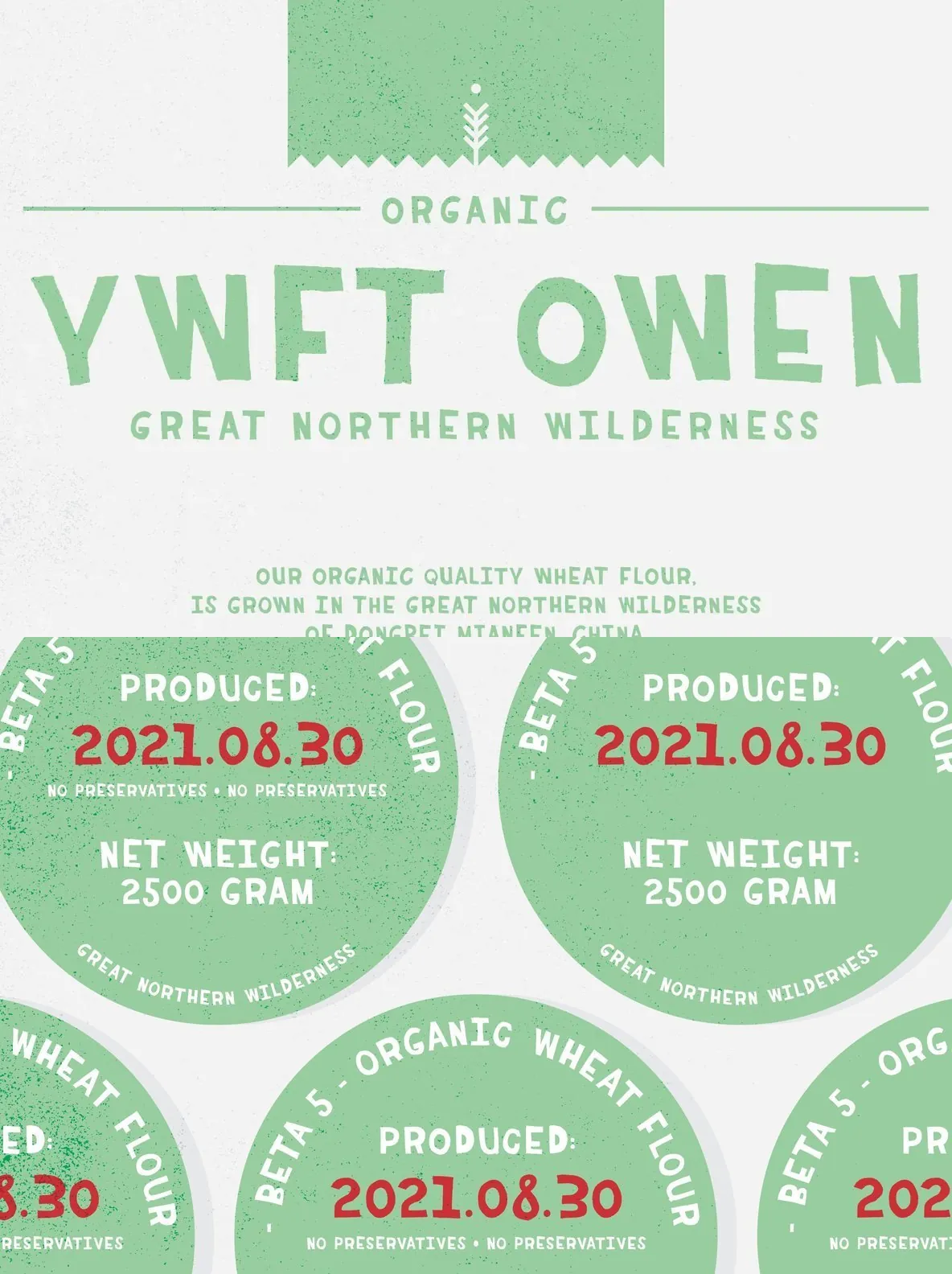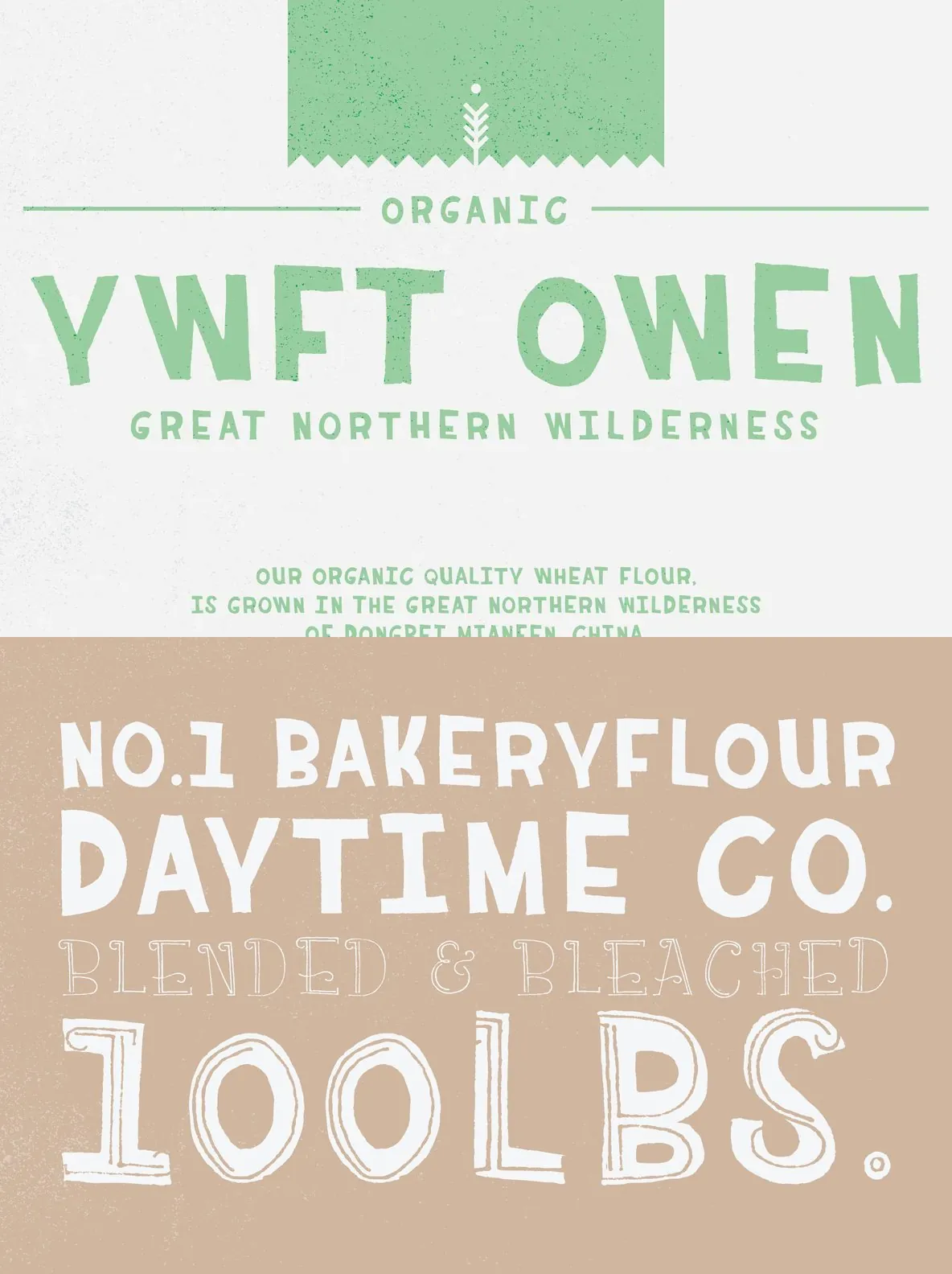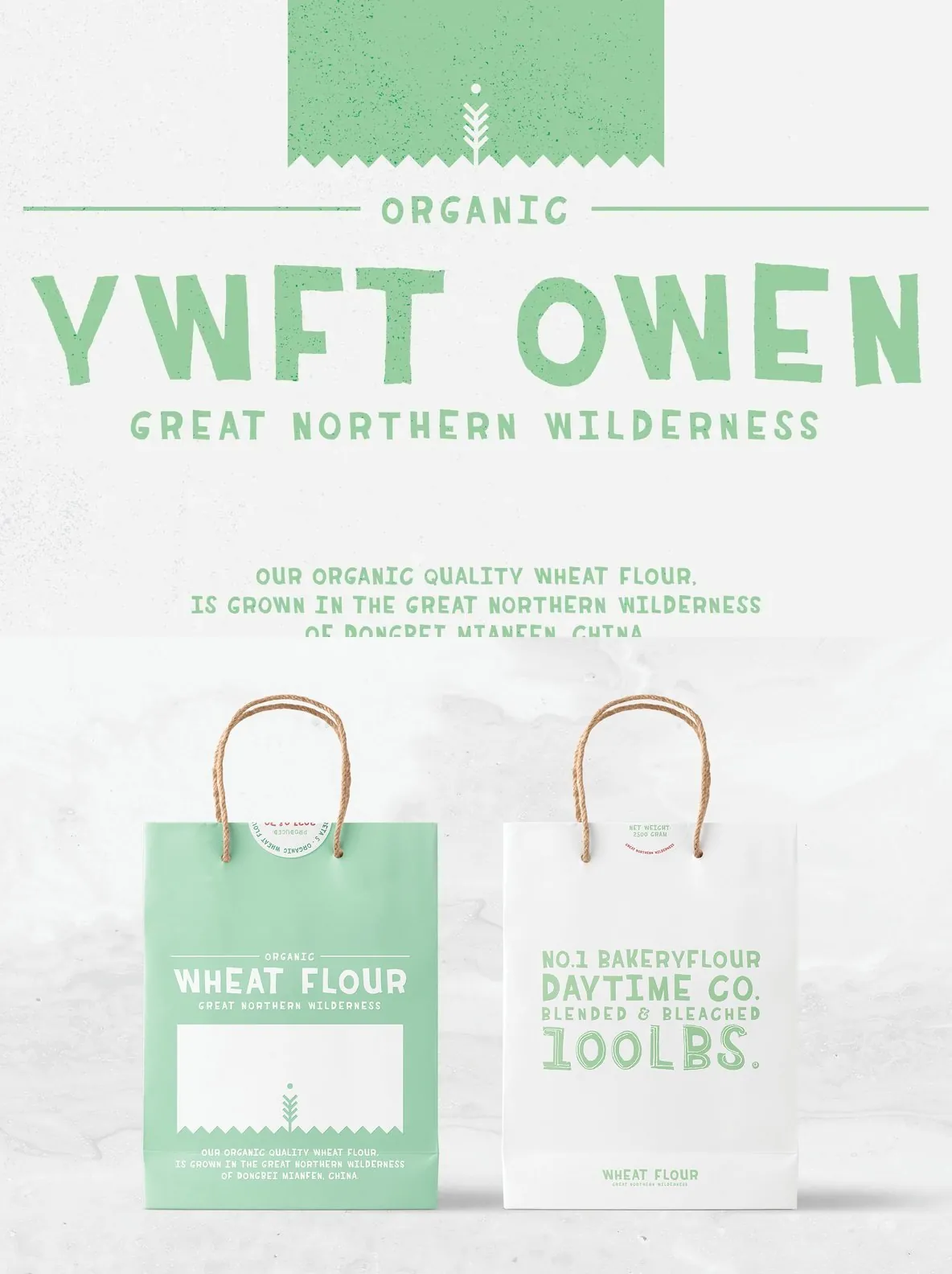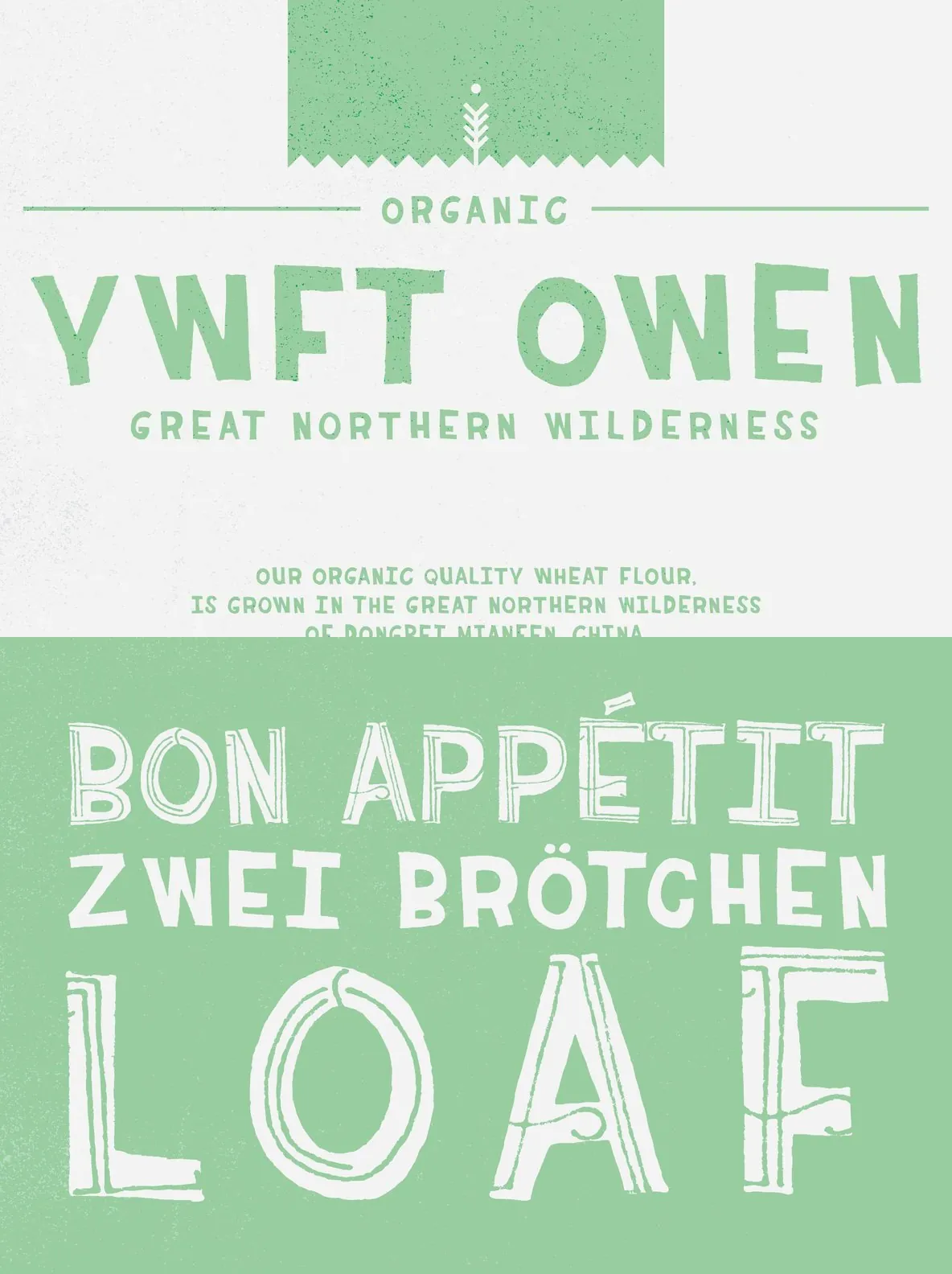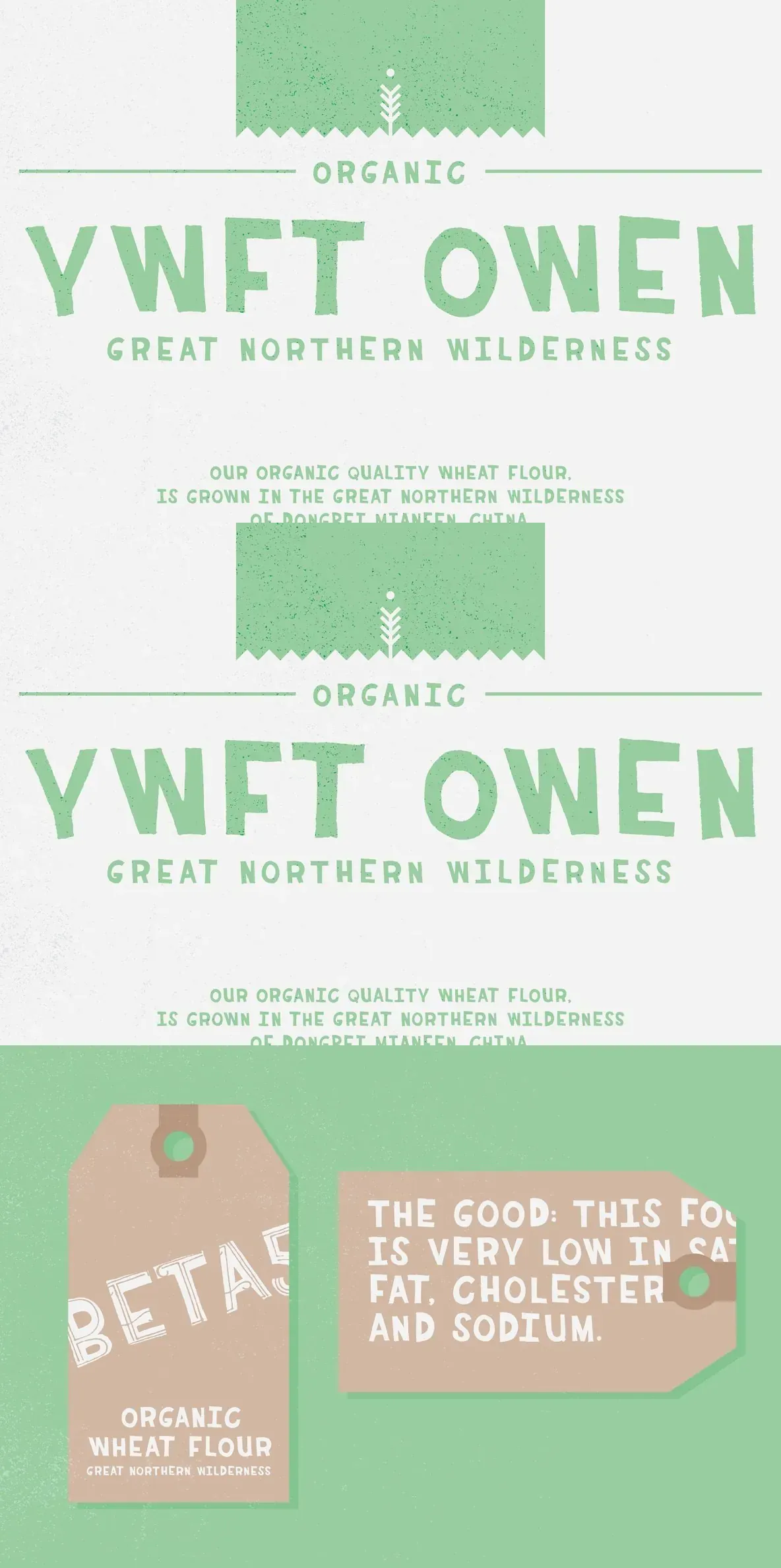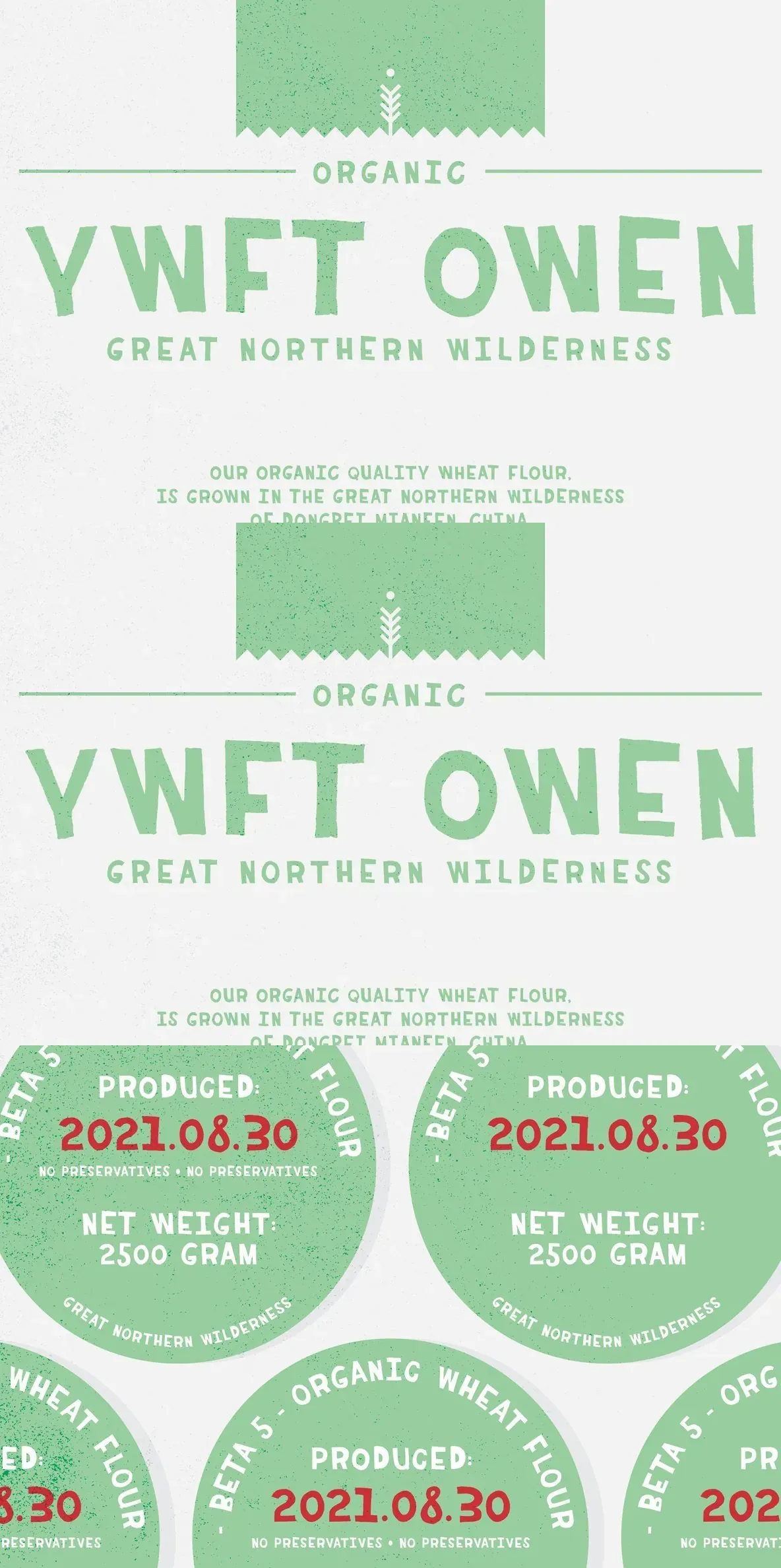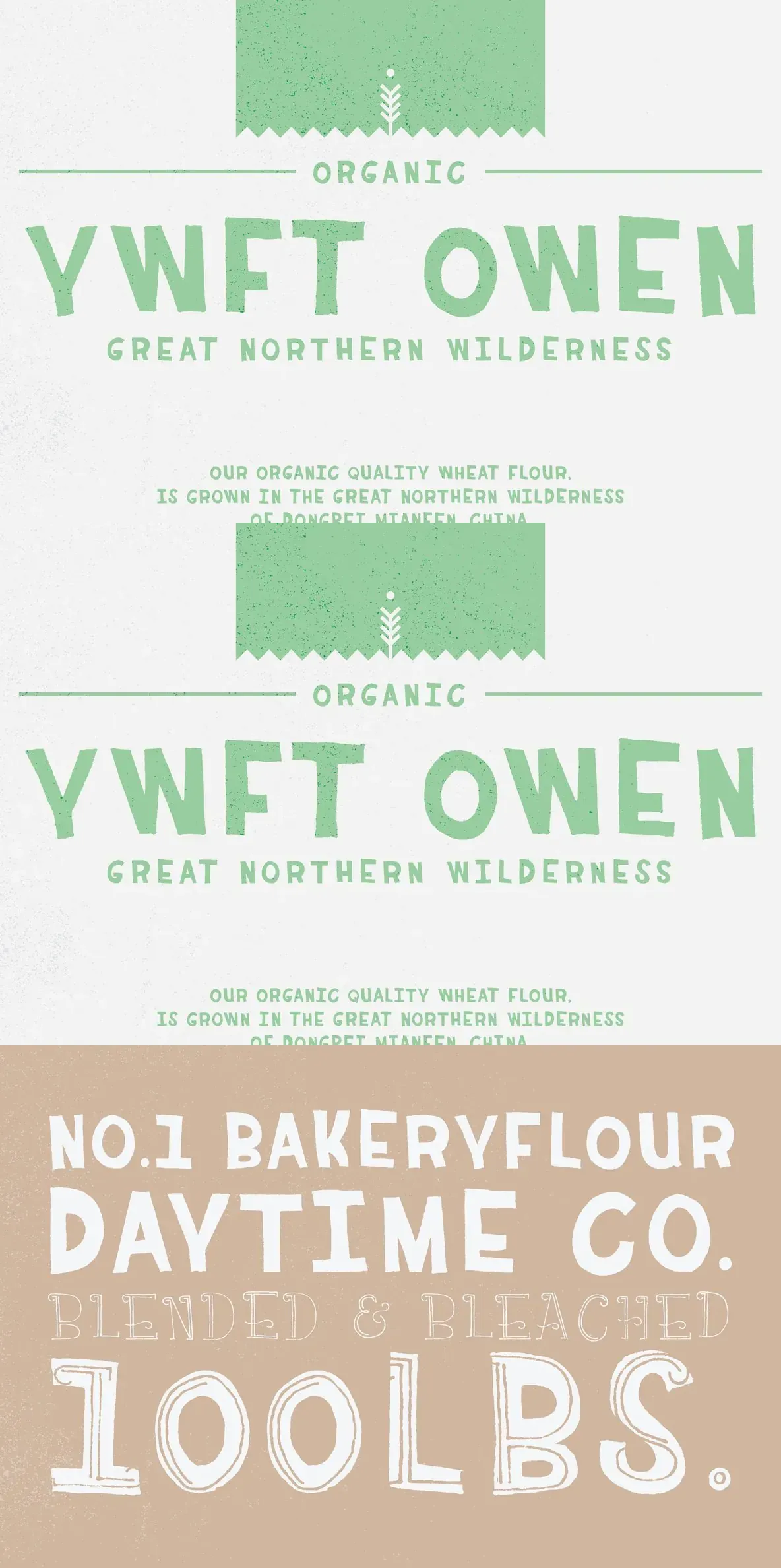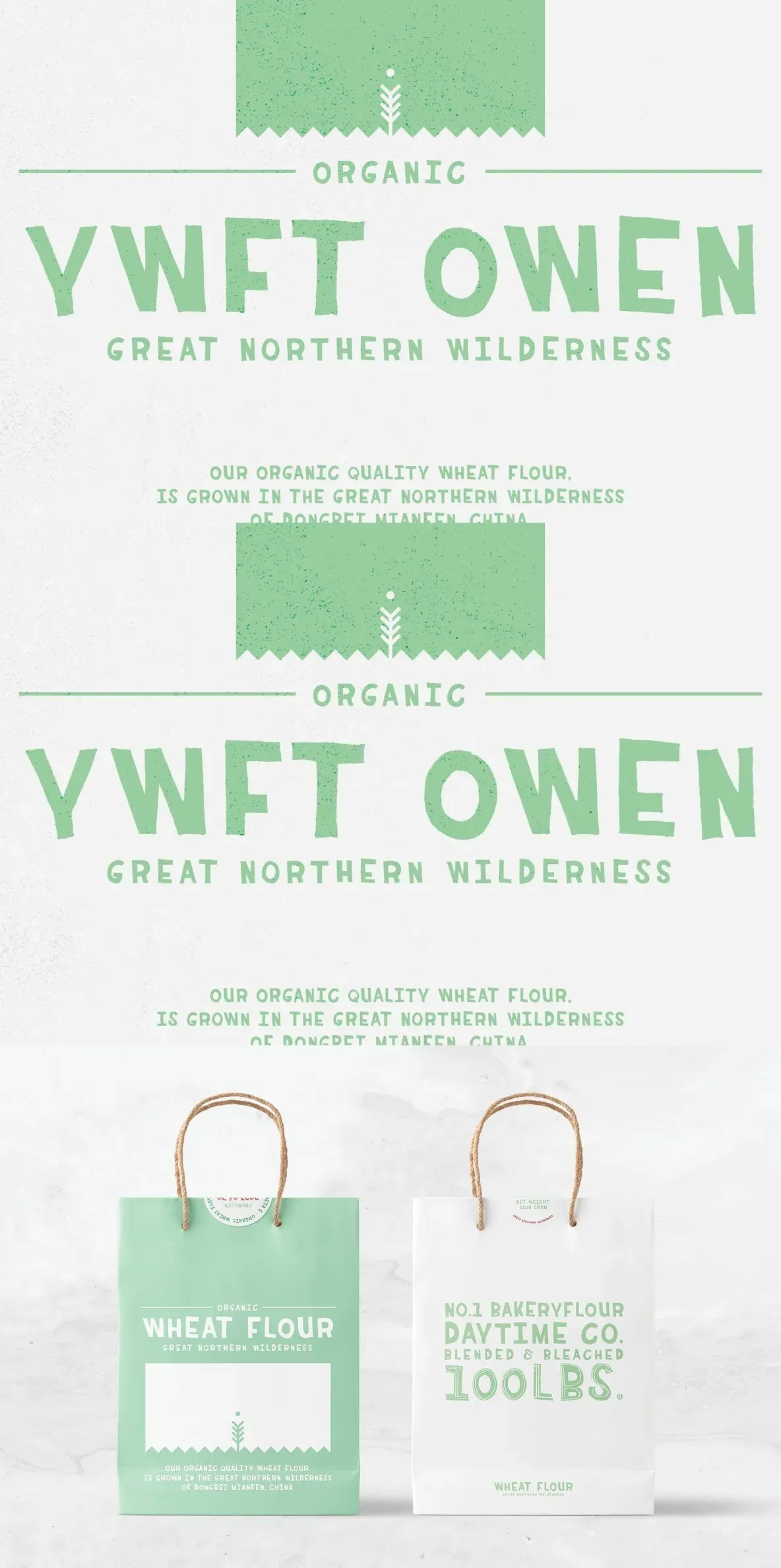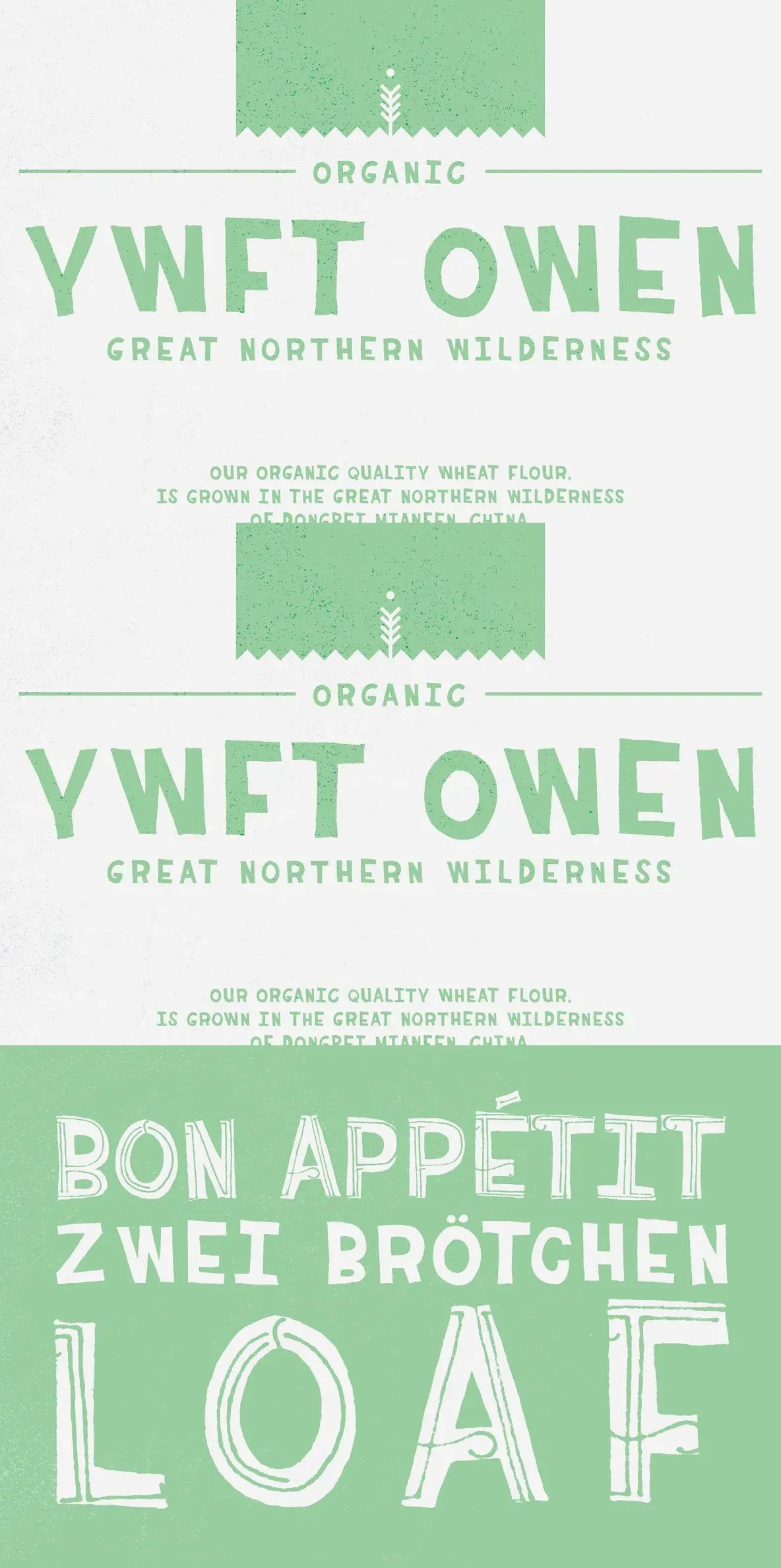
YWFT Owen: Bold Inline Lettering With Retro Beach Vibes
YWFT Owen combines playful ornamental inlines with chunky sans serif backgrounds to create a distinctive typographic statement. This typeface maintains the character of its original handset roots, introducing warmth and flair to editorial headlines, posters, and branding projects. The design draws inspiration from mid-century signage and sun-soaked vacation graphics, channeling a retro attitude well-suited for attention-grabbing layouts.
YWFT Owen’s overlay structure offers strong contrast, pairing sculptural letterforms with decorative detailing that invites experimentation. This font works best at large sizes, where its quirky details and dramatic curves can be fully appreciated. Creative professionals often use it for packaging, magazine spreads, and campaigns seeking a casual yet confident presence.
Ornamental inline overlays for decorative depth
Chunky sans serif letterforms with vintage feel
Ideal for bold headlines, brand identities, and editorial design
Distinct retro-beach vibe adds quirky energy to visuals